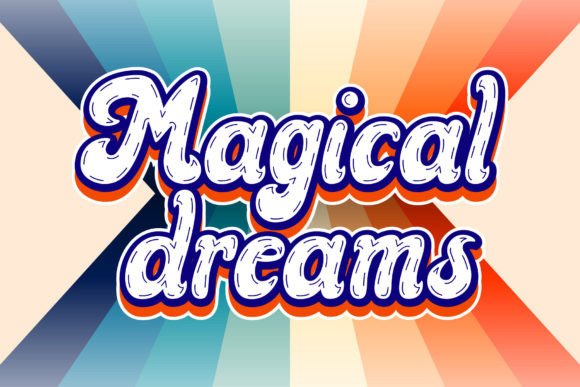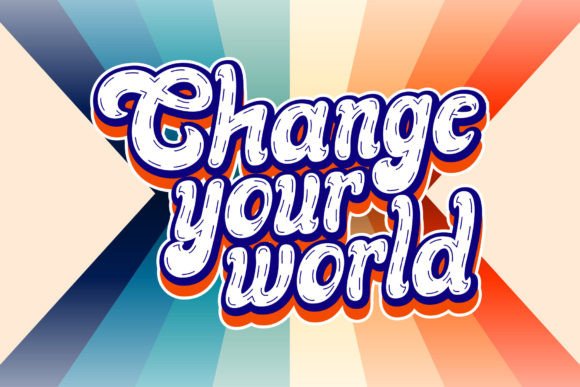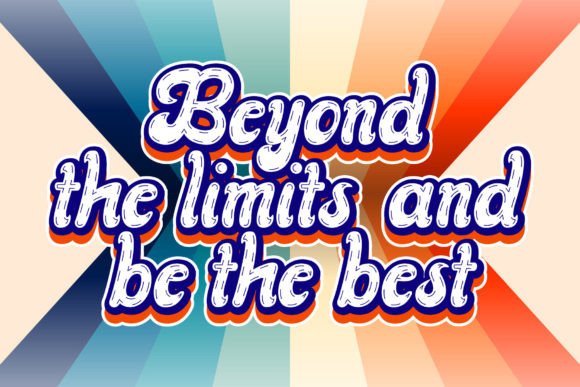
Change Stitch Font
Change Stitch is a cool, vintage-style display font. Use it to add that special retro touch to any design idea! It can be used for logos, branding, invitations, stationery, wedding designs, social media posts, and much more!This font is PUA encoded which means you can access all glyphs easily!